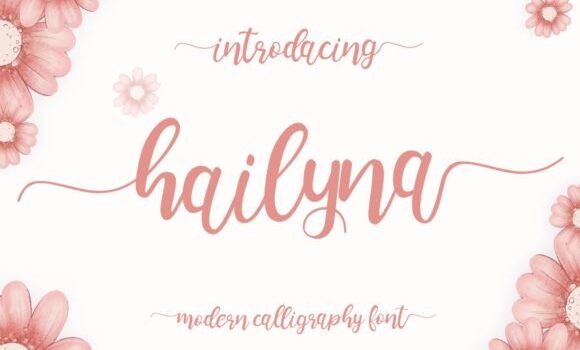
hailyna
Hailyna Font – Free Download Introduction to Hailyna Font Hailyna is a sweet, soft hand-lettered handwritten font. 📸 Preview Gallery 5 images 📌 Product Name Hailyna Font 👤 Author SharkStudio 📂 Category Explore ⬇️ Download Hailyna Font FREE Free Download